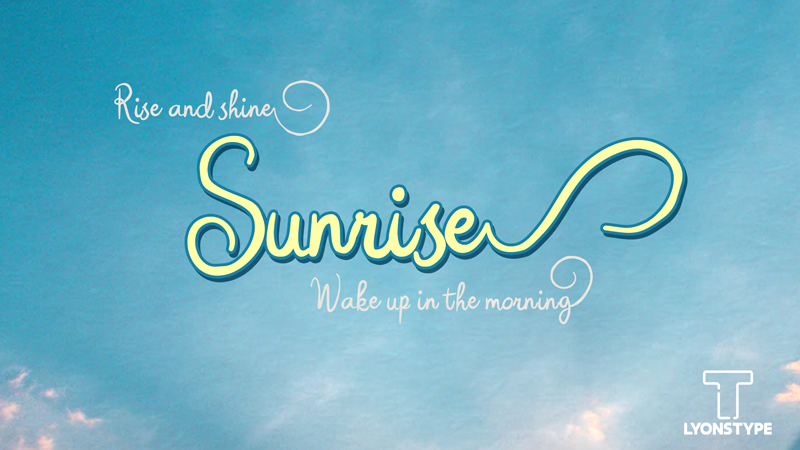
Font name: | LT Sunrise |
Author: | Daniel Lyons |
Note by Daniel Lyons | |
Waking up in the morning applies a lot of motivation to your routines and starting off fresh. So I thought why not make something to base upon that theme. Cheers, LyonsType |